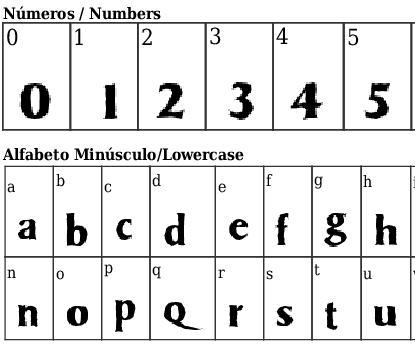
Sydneyantique Bold Font is an outstanding font contributed by way of house industries and designed by using tal lemming in 2006.
This font has extremely good glyphs and characters. United sans serif font is right in your weblog page, brand format.
You can use this free font in a document which needs a clean and wonderful appearance. Because of its specific texture a few material industries use of it as a printing font.
Sydneyantique Bold Font